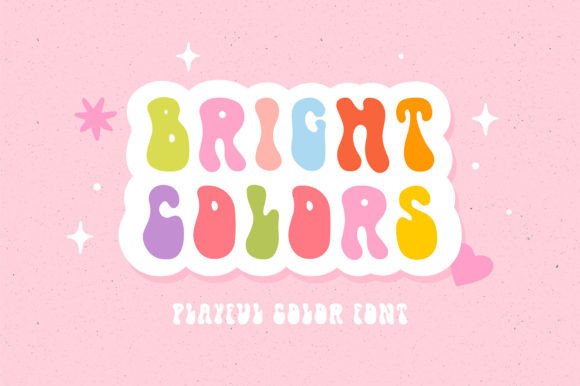
Journey into a world where imagination reigns supreme, where colors dance and letters leap off the page, introducing Bright Colors Font - the ultimate font for captivating children's hearts and minds. Crafted by the talented Julia_Volkova, this delightful font family is a symphony of vibrant hues and playful shapes, embodying the essence of childhood wonder and creativity.
Bright Colors Font is not just a font; it's an invitation to embark on a whimsical adventure, where every word becomes a kaleidoscope of joy. Its chunky, playful letters dance across the page, adding a touch of whimsy and charm to any project. Whether you're creating school projects, designing invitations, or crafting personalized gifts, Bright Colors Font is your perfect companion.
Designed with children in mind, this font captures the boundless energy and boundless imagination of the young. Its bold, easy-to-read characters make it perfect for early readers, helping them navigate the world of words with confidence. Bright Colors Font transforms learning into an exciting and engaging experience, turning textbooks into treasure maps and homework into a delightful adventure.
But Bright Colors Font's appeal extends beyond the classroom. Its vibrant colors and playful design add a touch of magic to any creative project. Bring your designs to life with eye-catching posters, colorful flyers, and enchanting invitations that captivate and inspire. Unleash your inner child and let your creativity soar, knowing that Bright Colors Font is your trusted companion on this artistic journey.